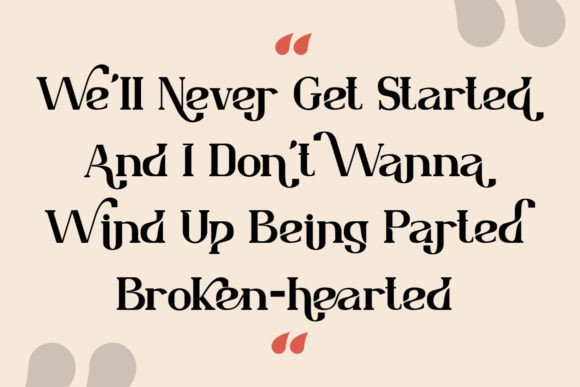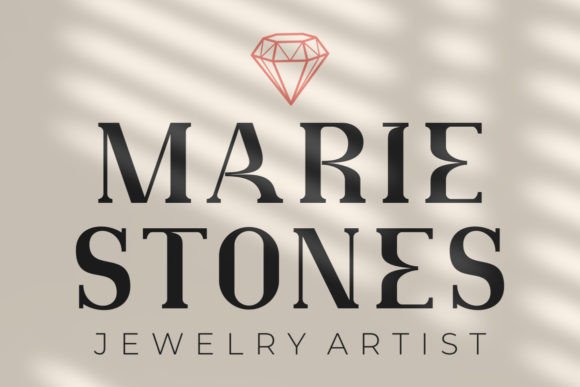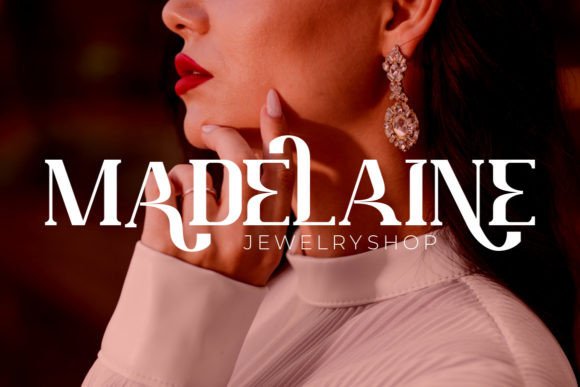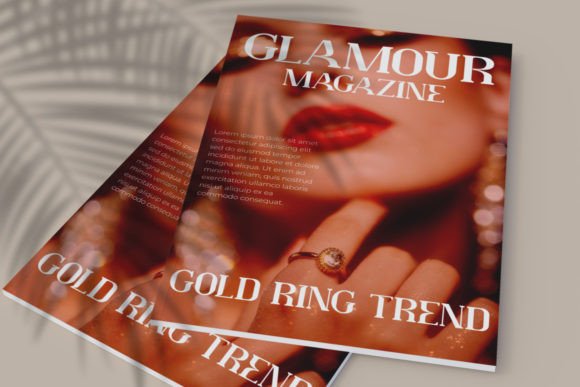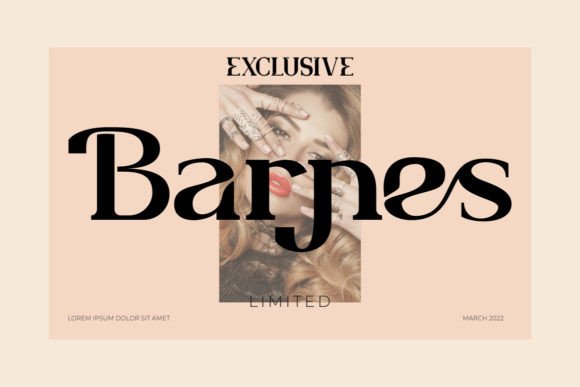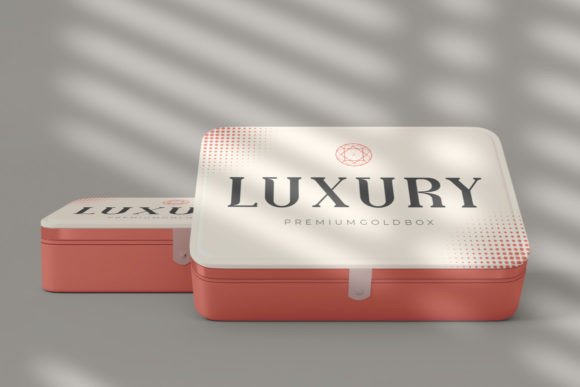
Lafonsa Font – Free Download
Introduction to Lafonsa Font
Lafonsa is a new serif font inspired by stylistic typography.
This lovely font is suitable for logotypes, headings, covers, posters, logos, quotes, product packaging, headers, merchandise, social media, and greeting cards .
Key Features of Lafonsa Font